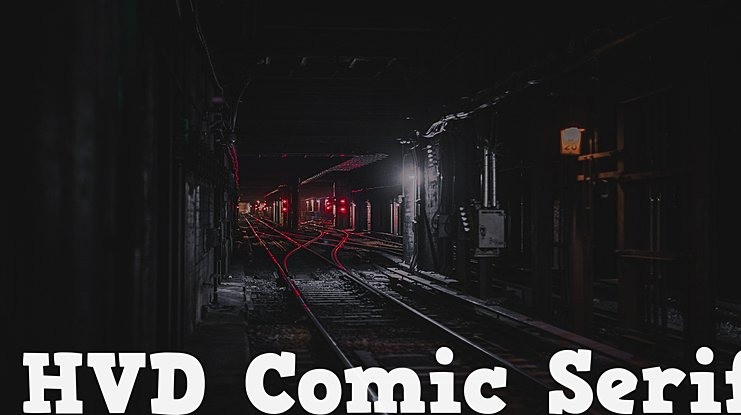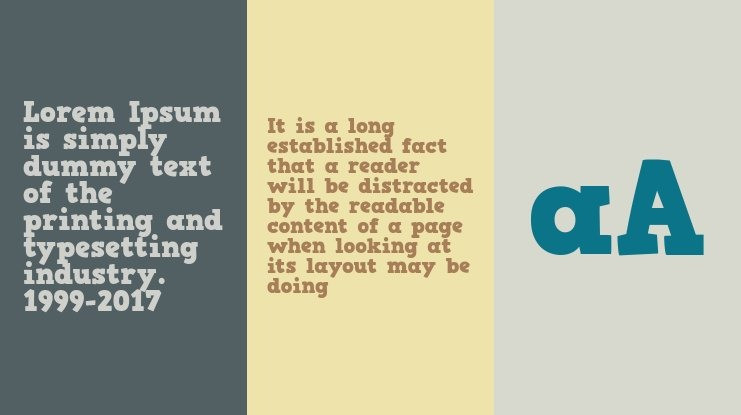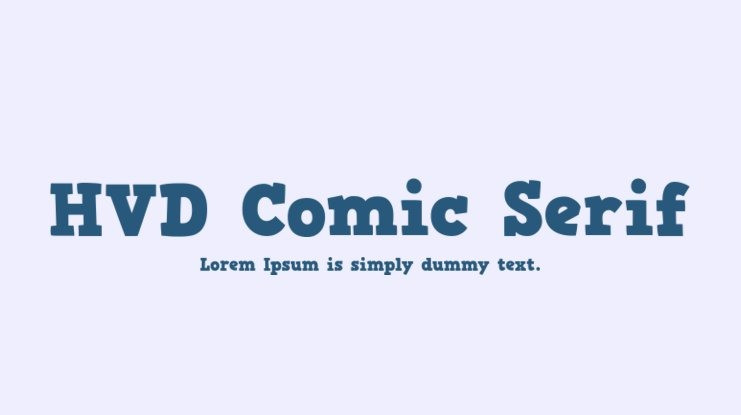
HVD Comic Serif Font, is a chunky, comic, and cartoon display font. With its neat and joyful personality, this font will enhance any project you wish to create!
HVD Comic Serif Font